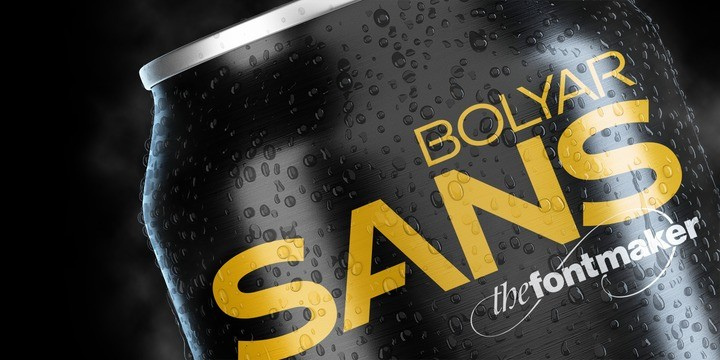
FM Bolyar Sans Pro Font
FM Bolyar Sans Pro Font excels in corporate branding, professional presentations, modern web design, editorial layouts, financial reports, architectural documentation, minimalist logos, annual reports, business cards, and contemporary magazine typography where clean readability meets sophisticated elegance.
What makes FM Bolyar Sans Pro Font exciting is its perfect balance of geometric precision and humanistic warmth that creates exceptional readability across all media platforms. This outstanding typeface features carefully crafted letterforms with subtle curves and optimal spacing that ensure superior legibility in both print and digital applications. The font's professional character and contemporary aesthetic make it ideal for businesses seeking to communicate reliability, innovation, and forward-thinking approaches while maintaining timeless appeal.
FM Bolyar Sans Pro Font belongs to the professional sans-serif font family, specifically designed for comprehensive typographic needs in corporate and editorial environments. This font family typically includes light, regular, medium, bold, and black weights, along with corresponding italic styles, providing designers with extensive typographic flexibility for complex layout requirements.
Perfect for graphic designers, art directors, corporate communications teams, and web developers, this typeface performs exceptionally in body text, headlines, and user interface elements. The font's technical excellence extends across print publications, digital platforms, signage systems, and branding materials where professional presentation is paramount.
The meticulously engineered letterforms maintain optimal readability at all sizes while preserving their distinctive contemporary character. From detailed financial documents to large-scale environmental graphics, FM Bolyar Sans Pro Font delivers consistent performance while supporting multiple languages and special characters.
Modern design professionals value how this font combines classical proportions with contemporary refinement, creating typography that feels both authoritative and approachable. Its extensive character set and OpenType features ensure seamless integration into professional workflows and complex multilingual projects.